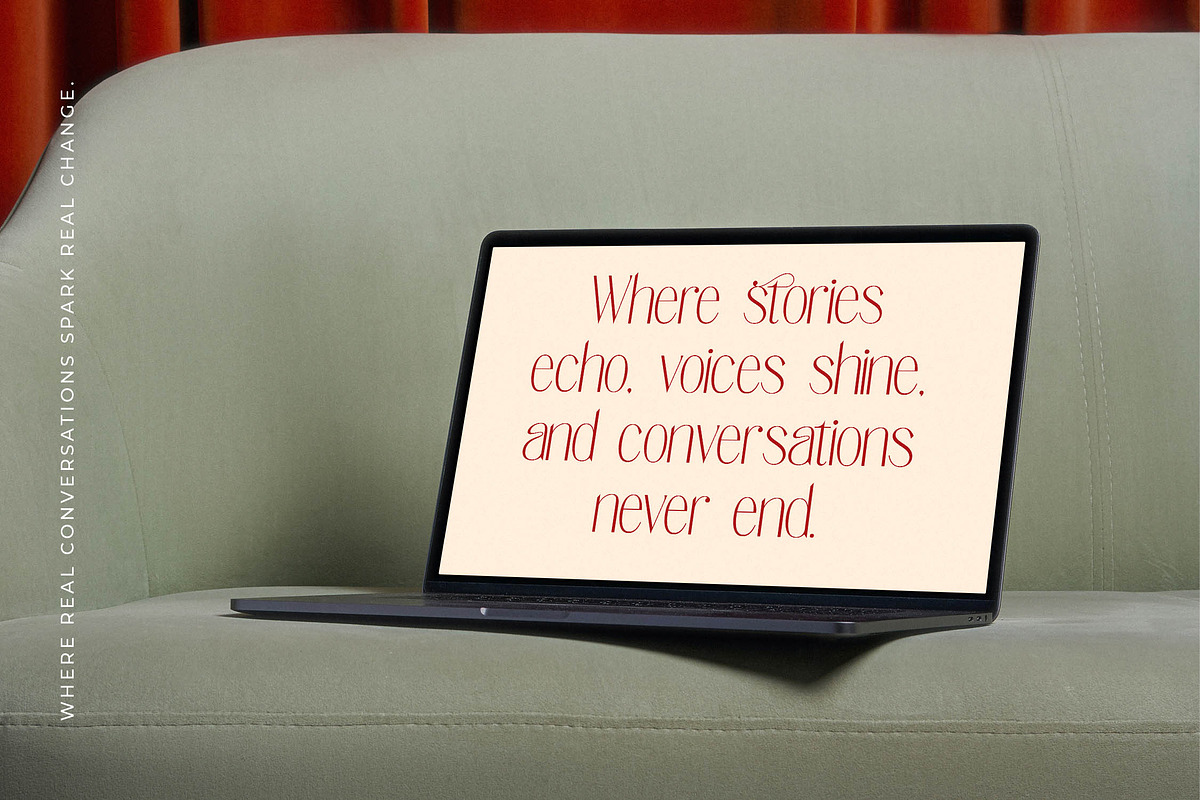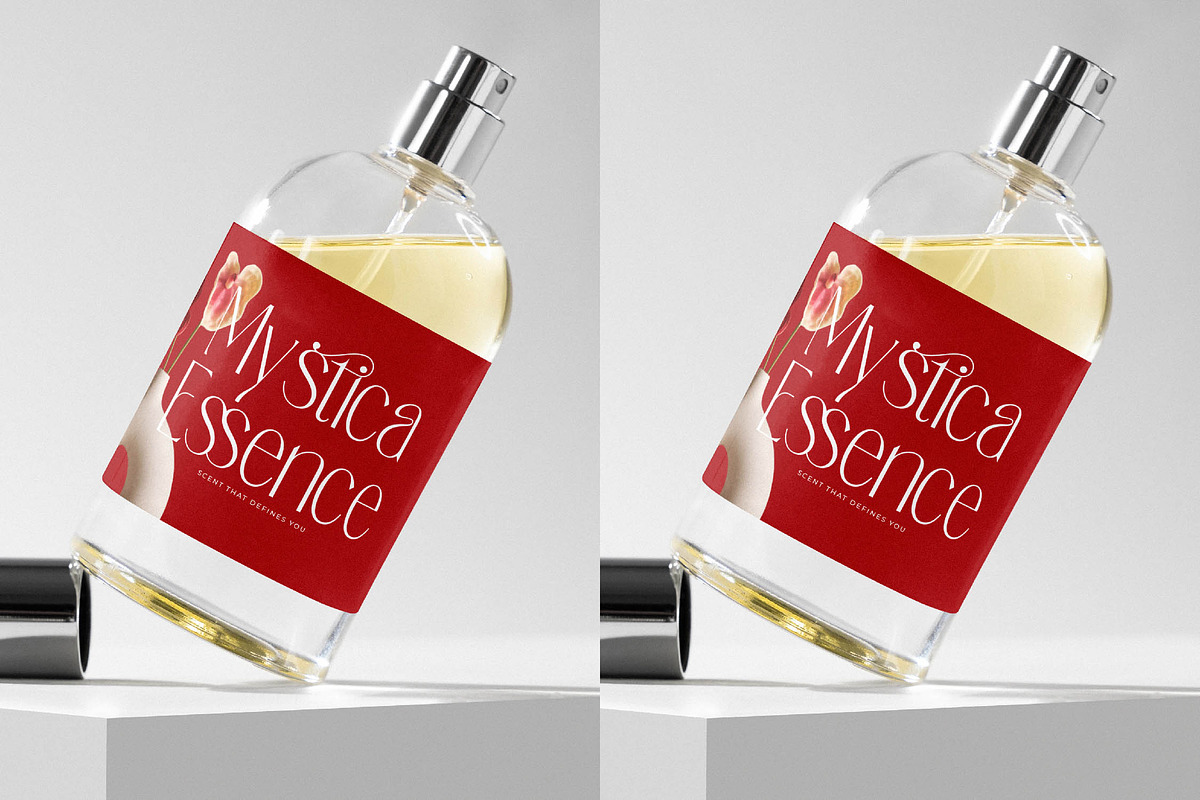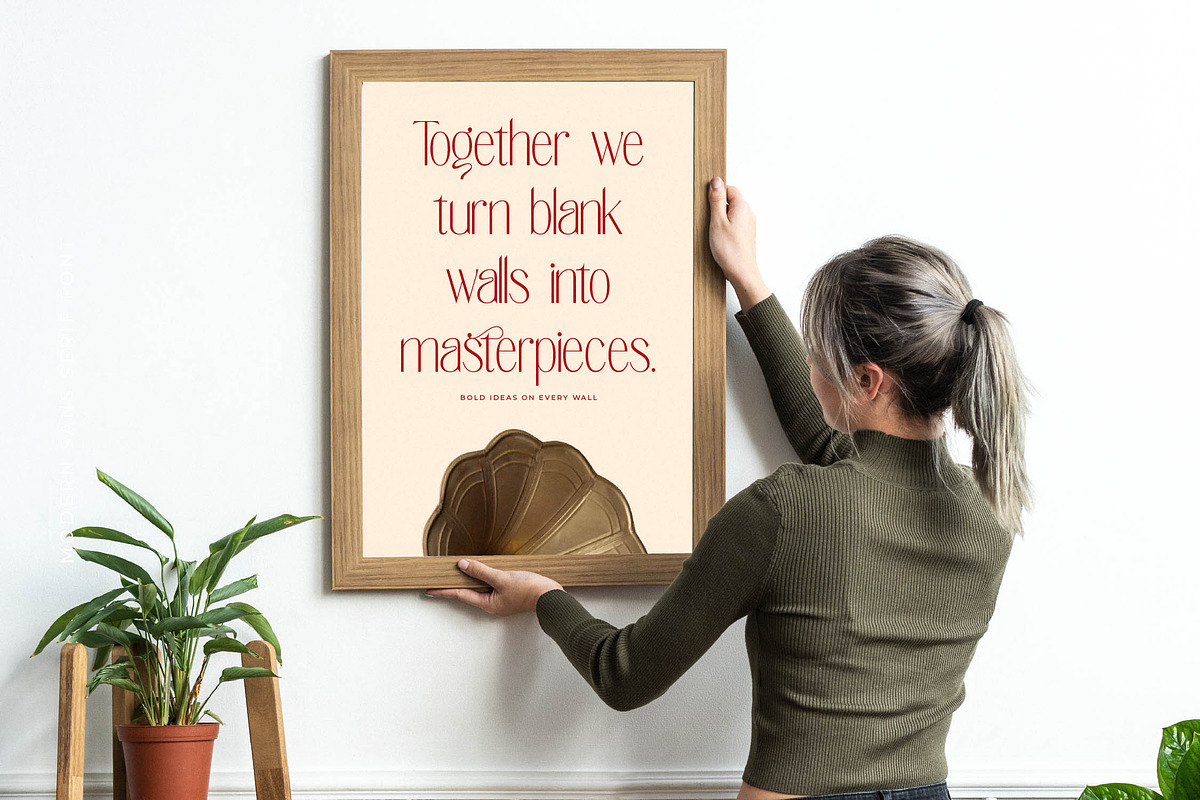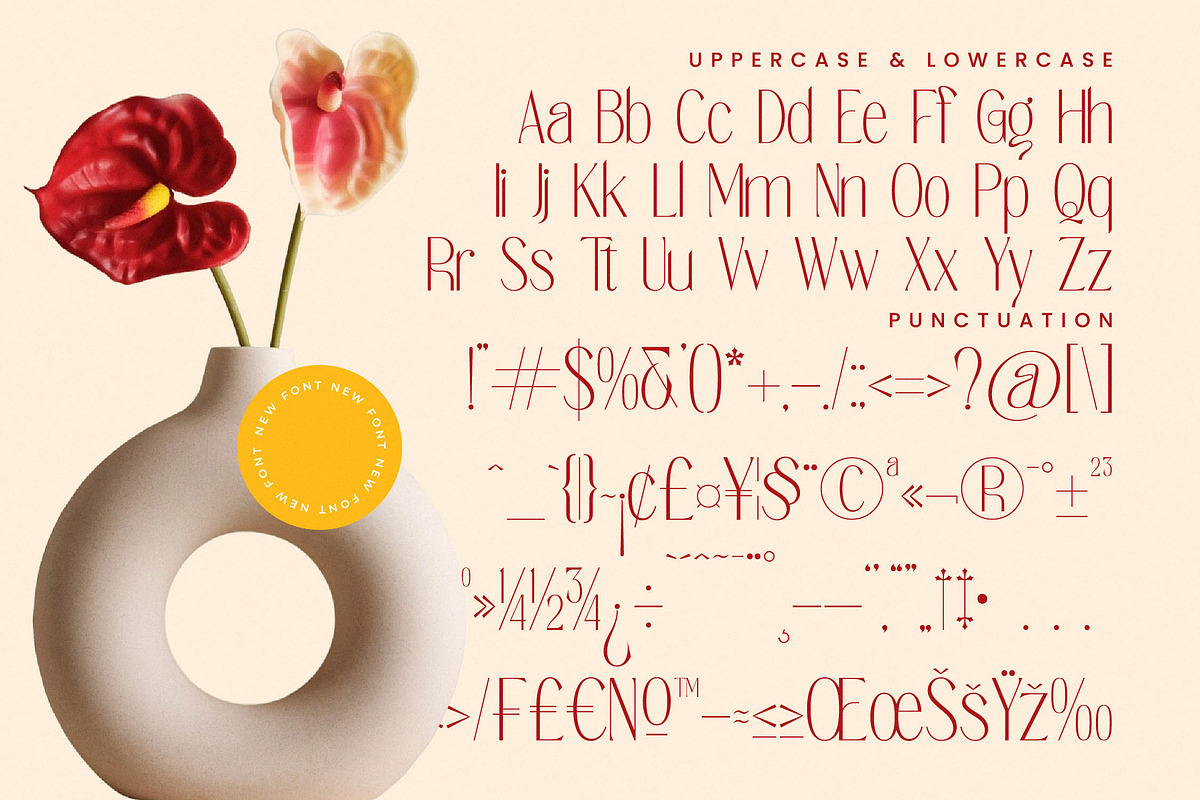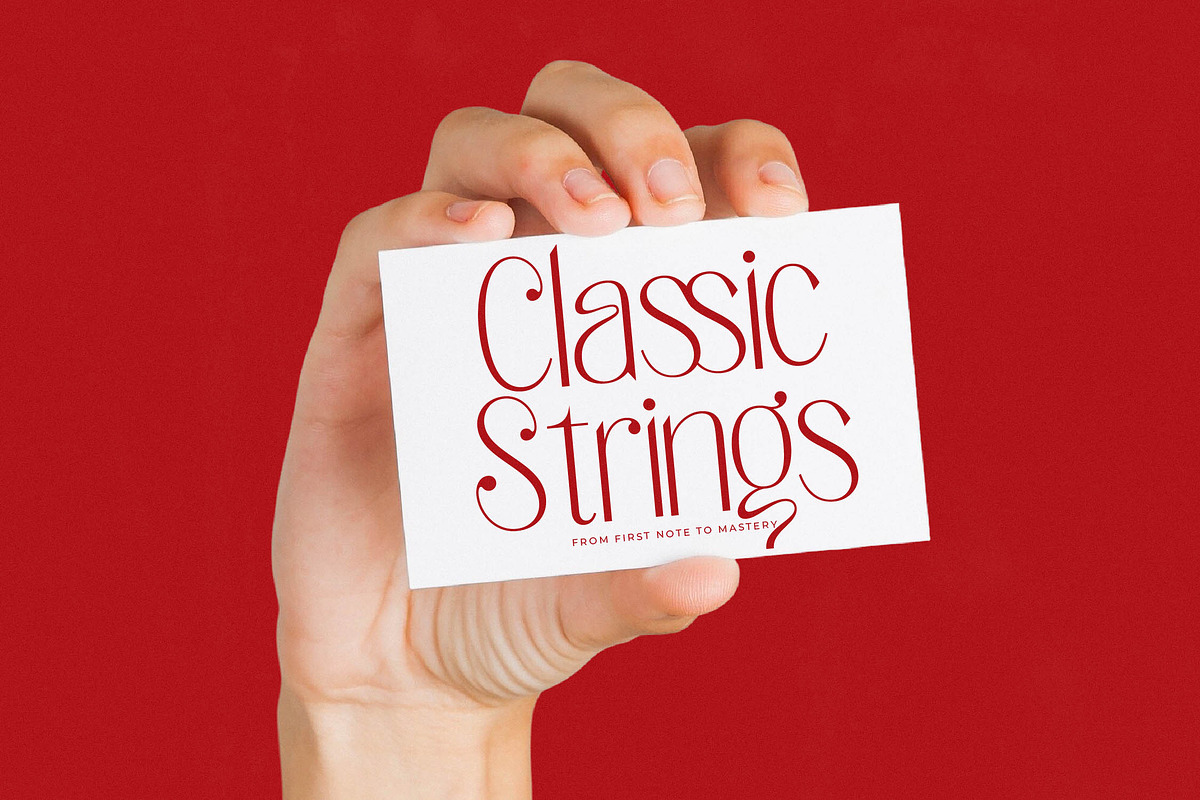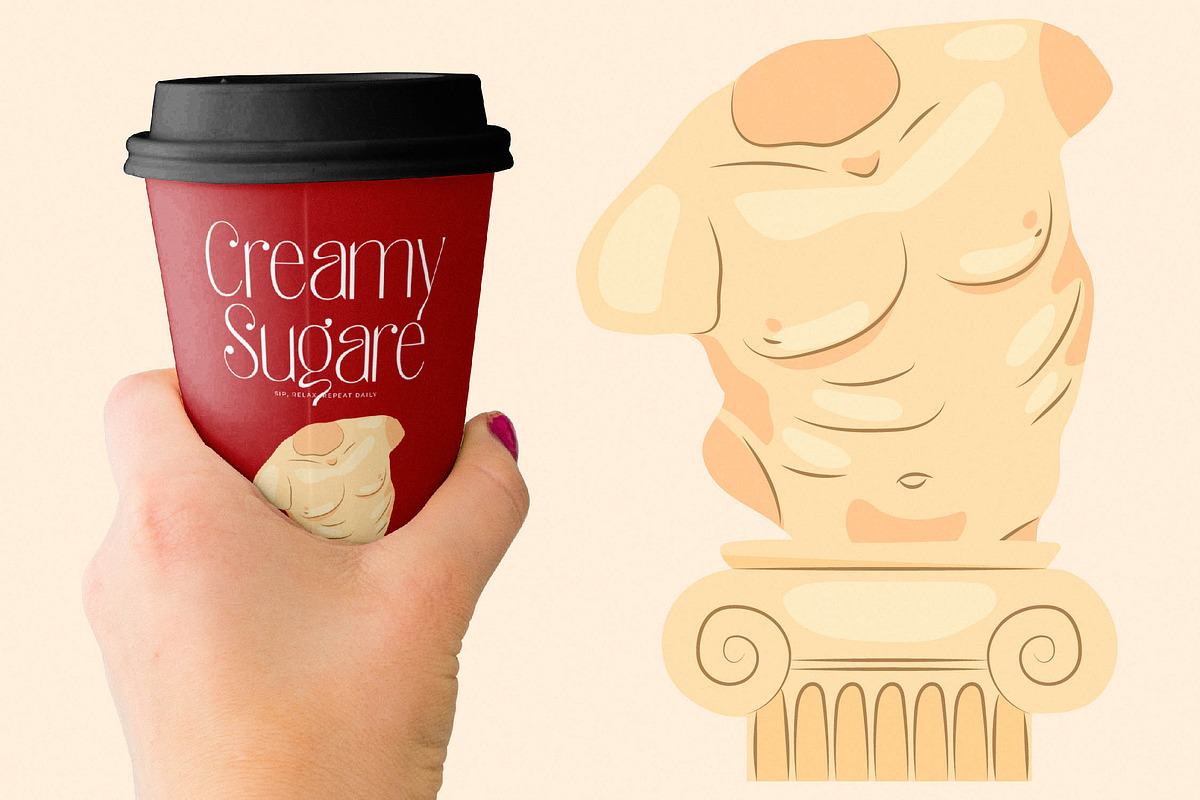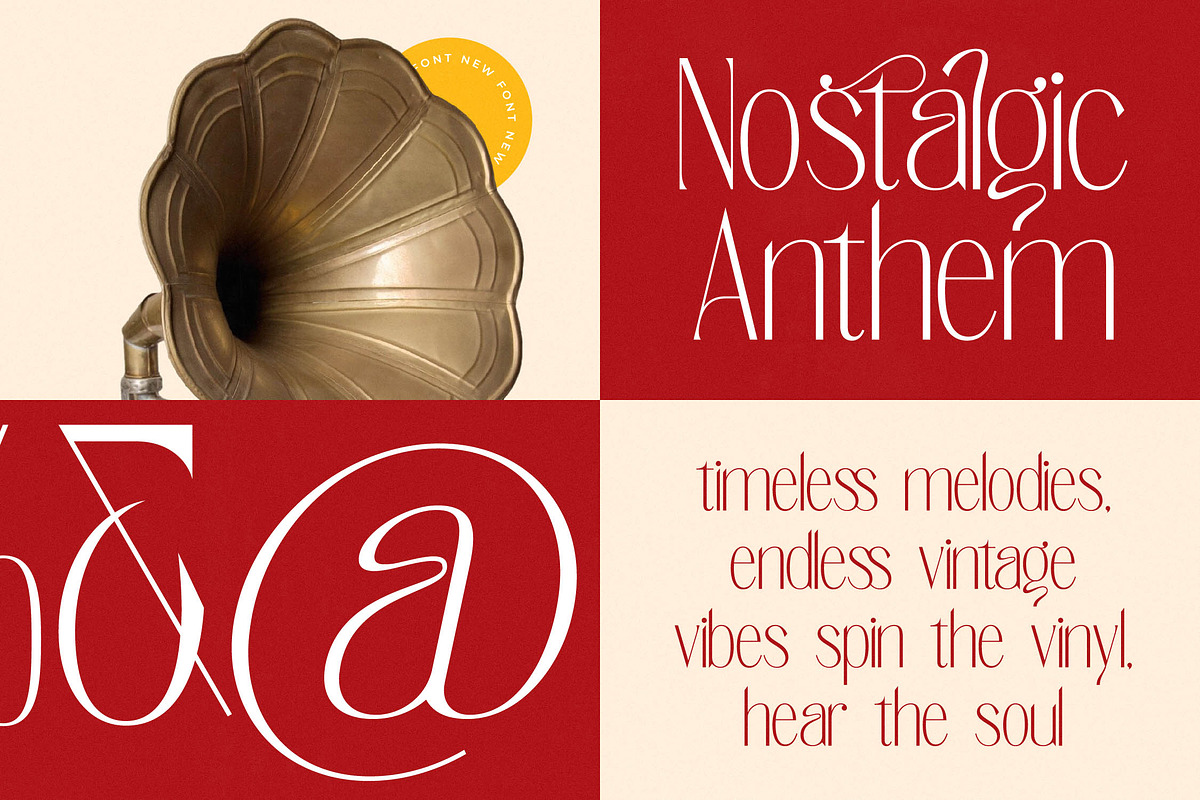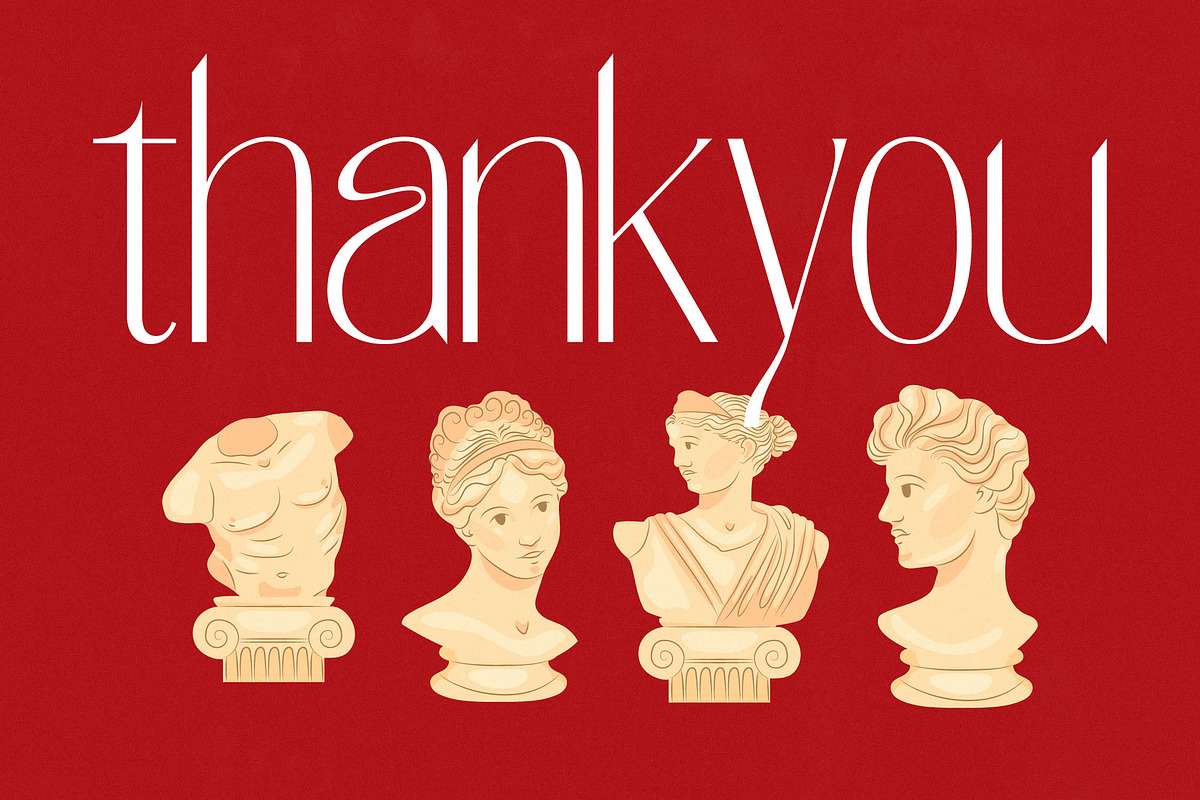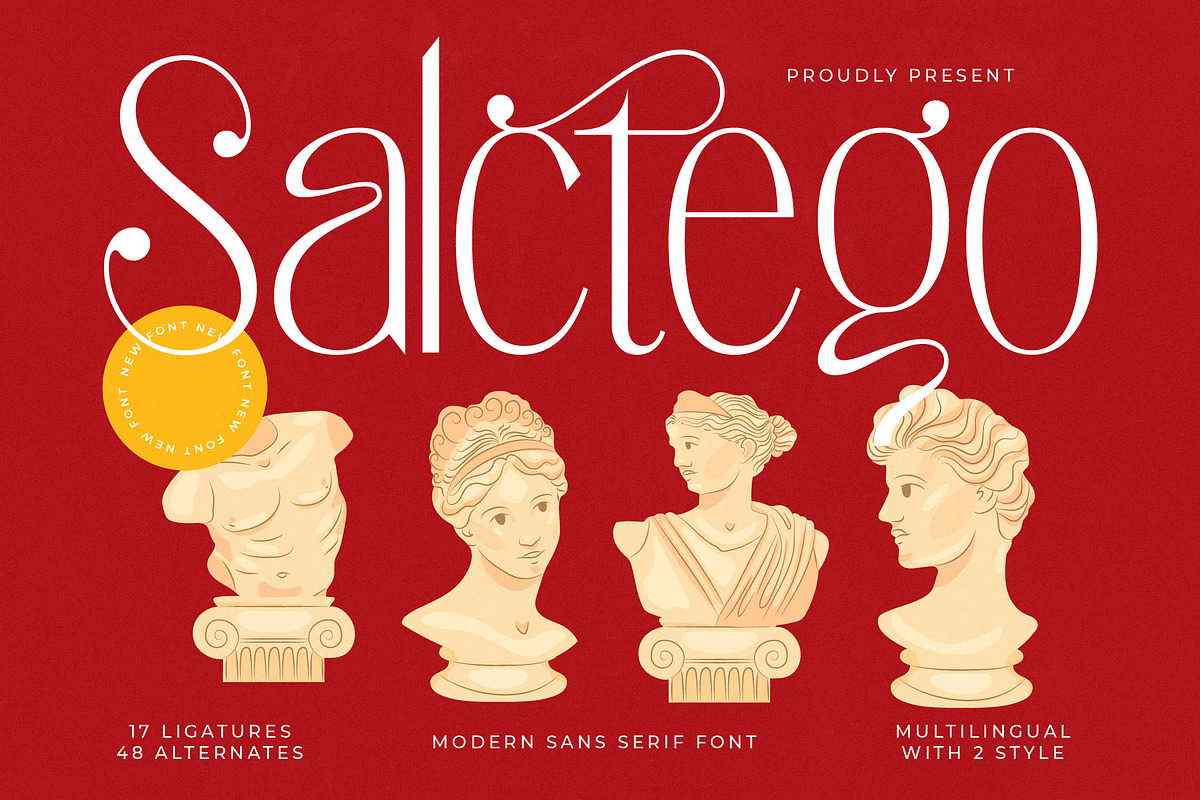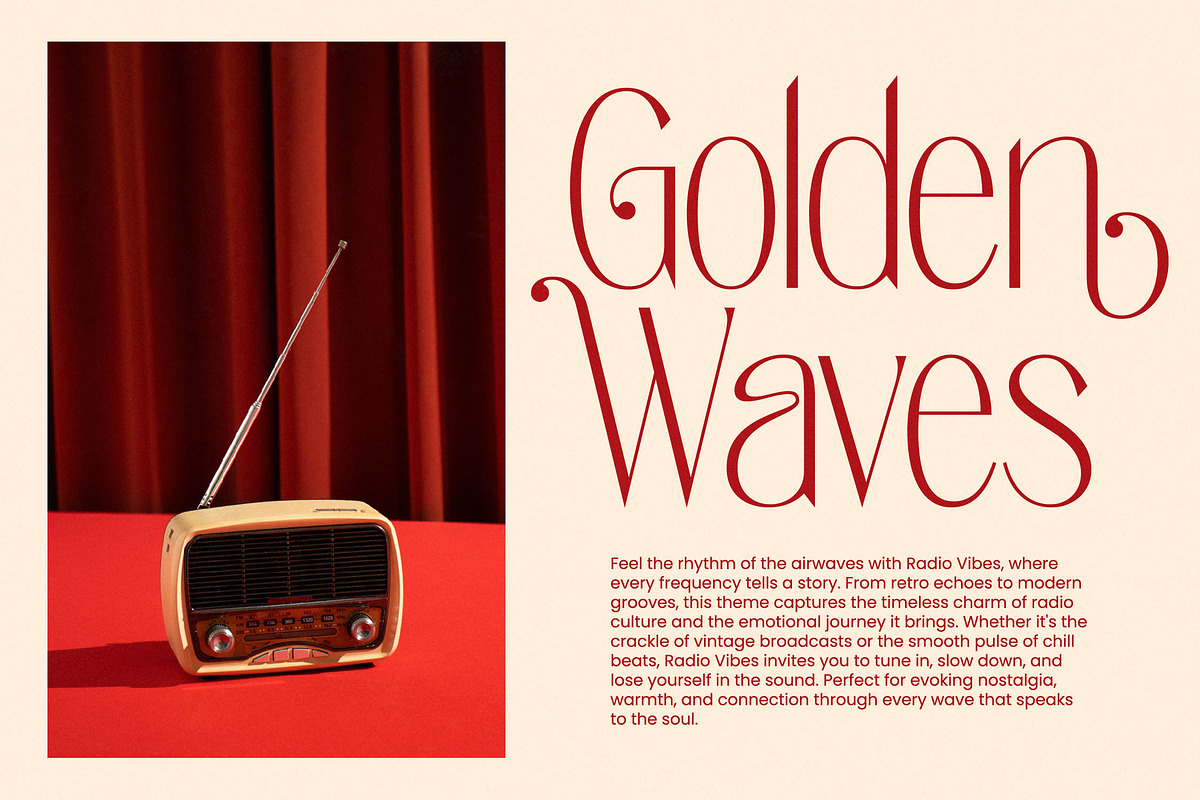
Salctego Modern Luxury Display
Elevate your creative vision with Salctego, an exquisite display of artistic expression and refined elegance. This typeface transcends traditional boundaries, offering a sophisticated aesthetic that commands attention in every design composition.
Drawing inspiration from the timeless beauty of classical sculptures and the graceful lines of high-fashion editorial layouts, this font captures a unique intersection of history and modernity. The fluid curves and sharp contrasts evoke the atmosphere of a high-end art gallery where every character tells a story of craftsmanship.
As a modern serif display solution, it offers an unparalleled sense of luxury typography through its slender proportions and dramatic strokes. This high-contrast serif is meticulously crafted to ensure a lasting branding impact, making it an essential editorial font for designers who prioritize style and substance in their creative toolkit.
Perfect for riding the current modern serif trend, this typeface brings a fresh perspective to the world of editorial display fonts. It satisfies the growing demand for character-driven typography that breaks away from the ordinary, allowing brands to communicate a sense of heritage blended with a contemporary outlook.
This versatile typeface is the ideal choice for high-end logo design and comprehensive branding identity systems that require a touch of class. From sophisticated editorial layouts and luxurious packaging to romantic wedding stationery and cutting-edge fashion lookbooks, it adapts seamlessly to various high-stakes creative projects.
The font package is rich with professional features including unique ligatures and creative alternates that allow for custom typographic flourishes. With extensive multilingual support and a wide range of international characters, it provides global versatility, while the decorative swashes ensure your text remains as unique as your creative vision.
- Ligature 17 Alternate 48